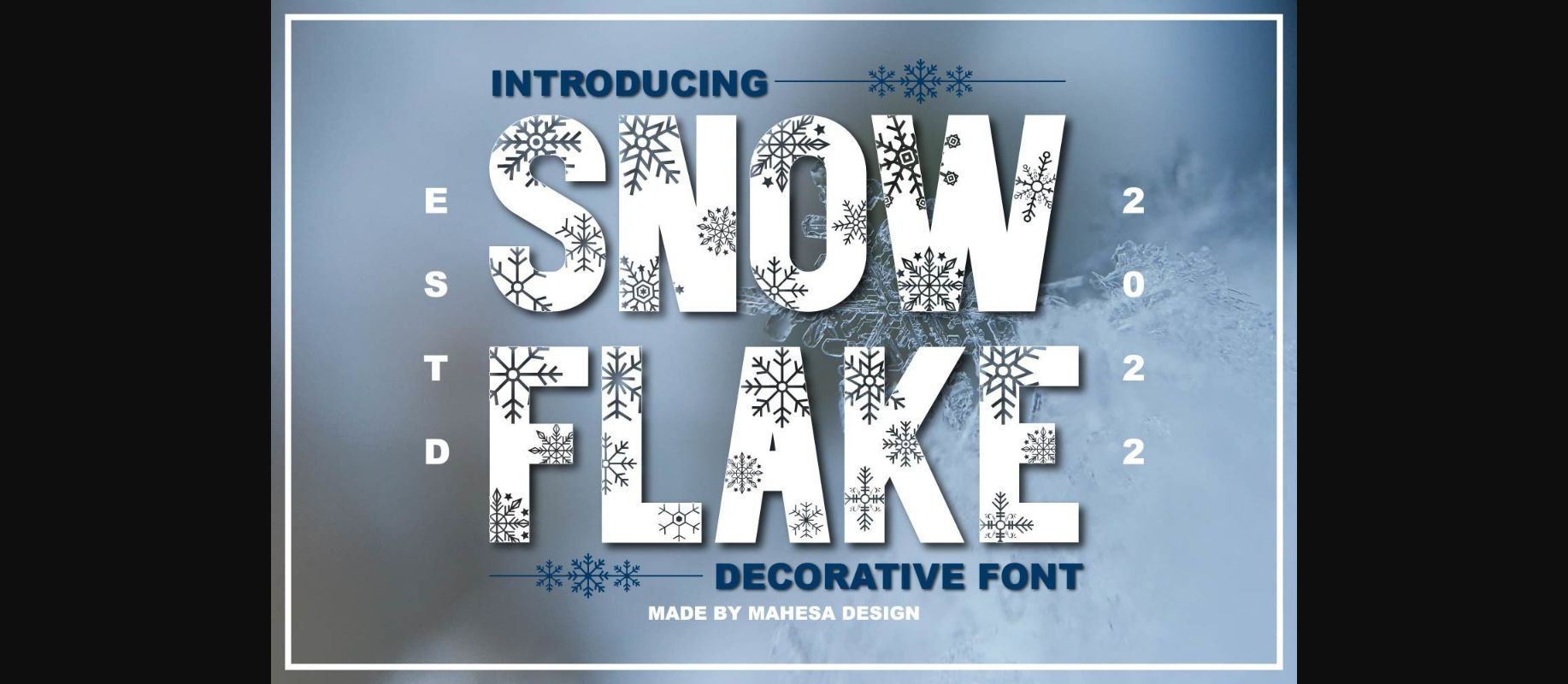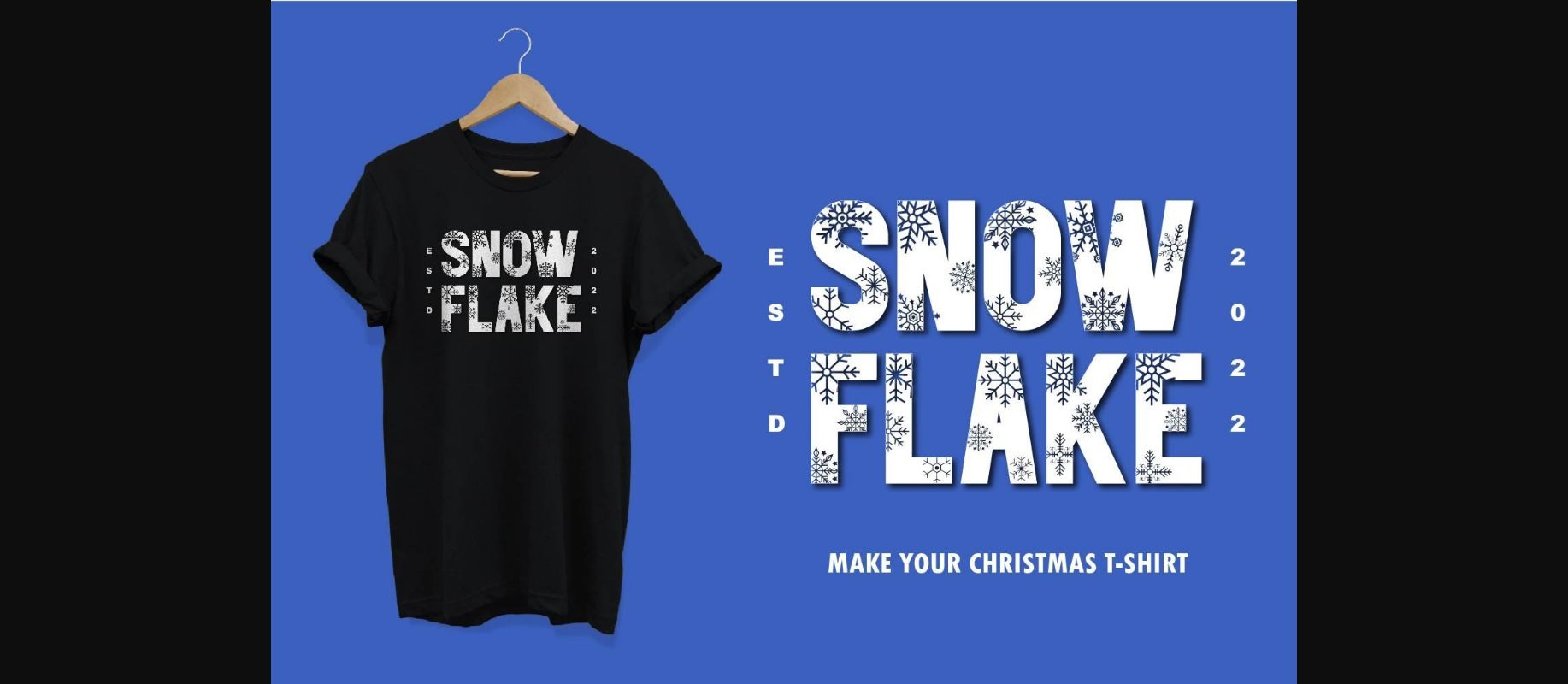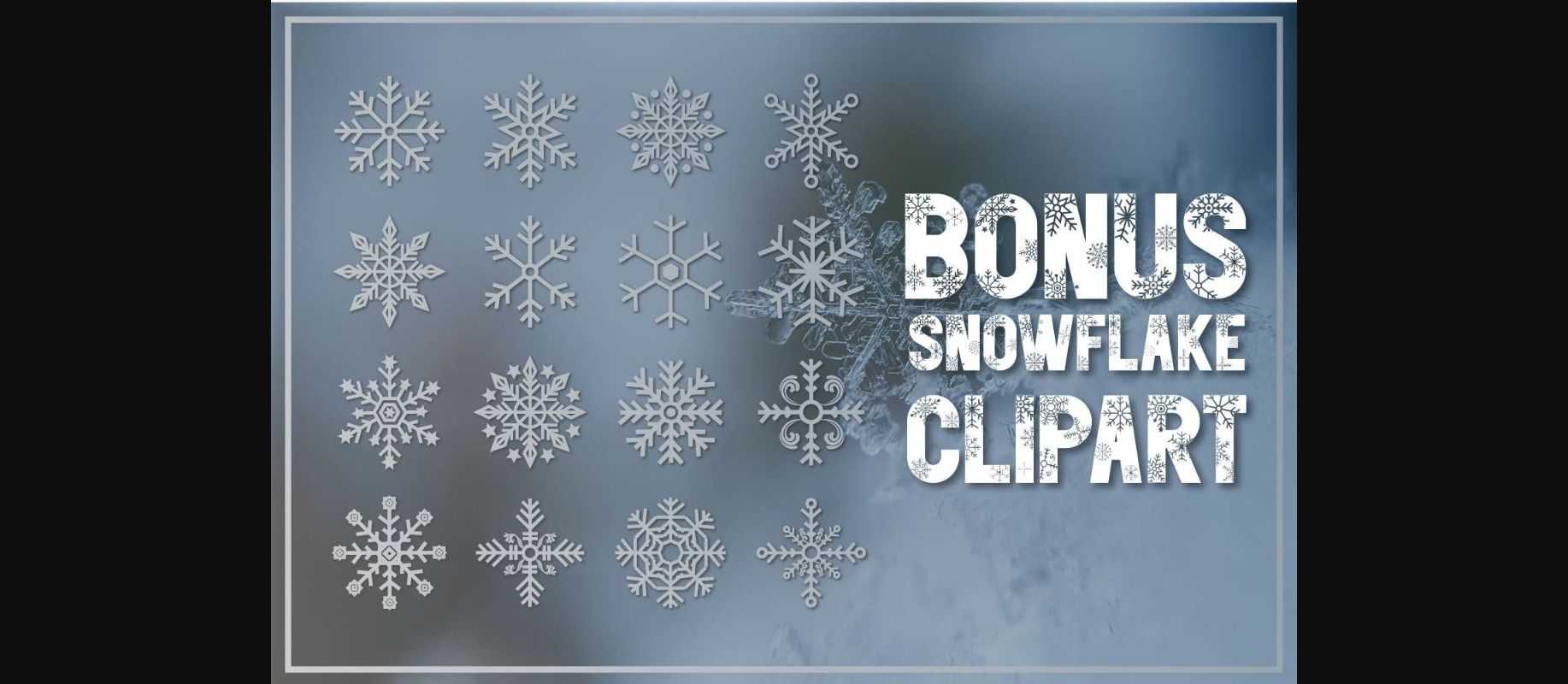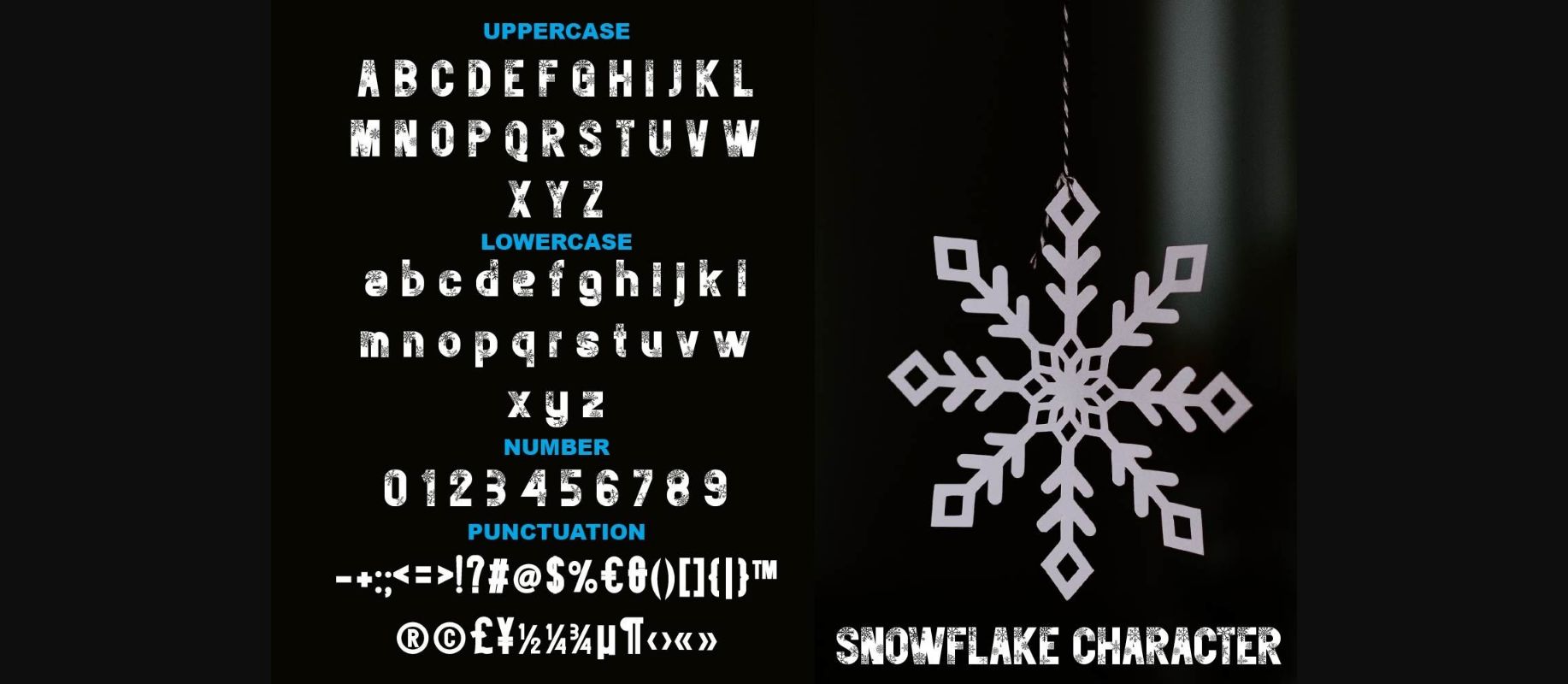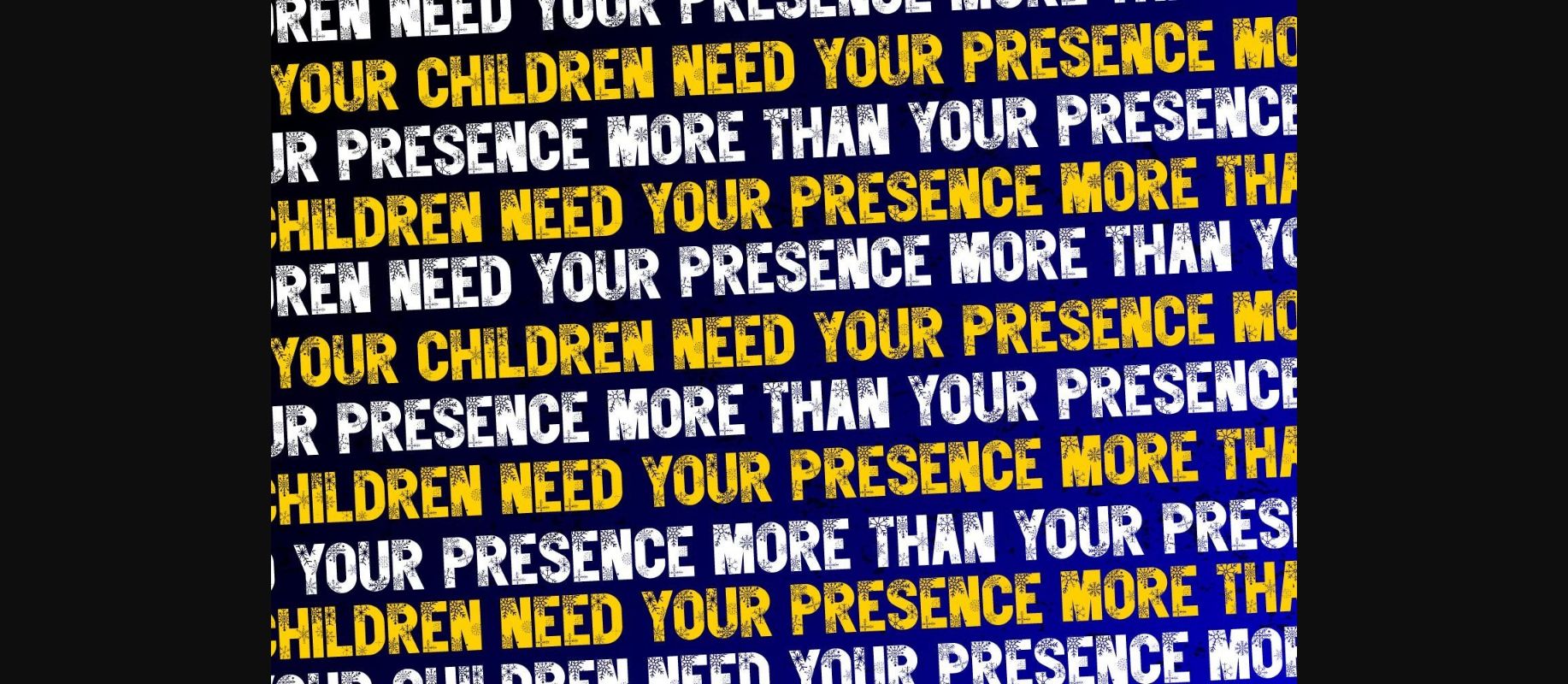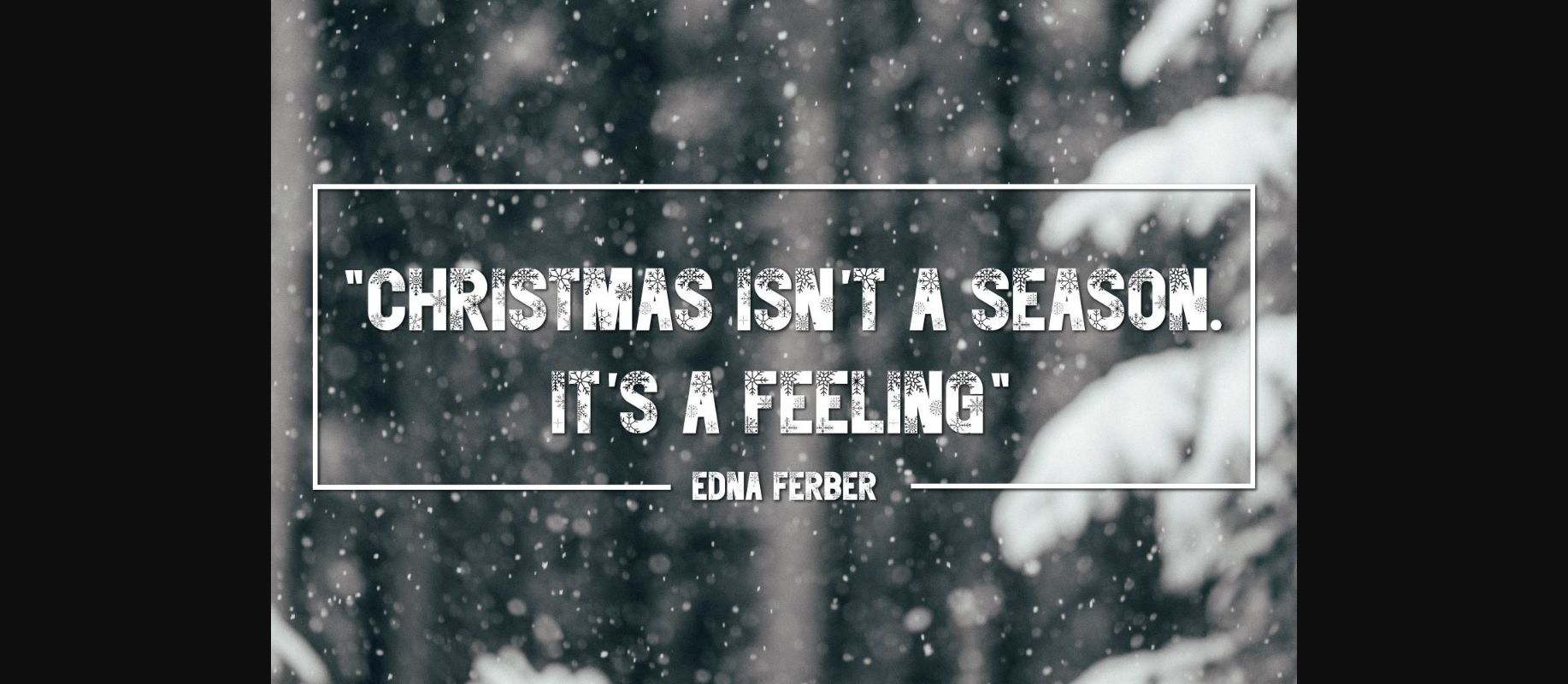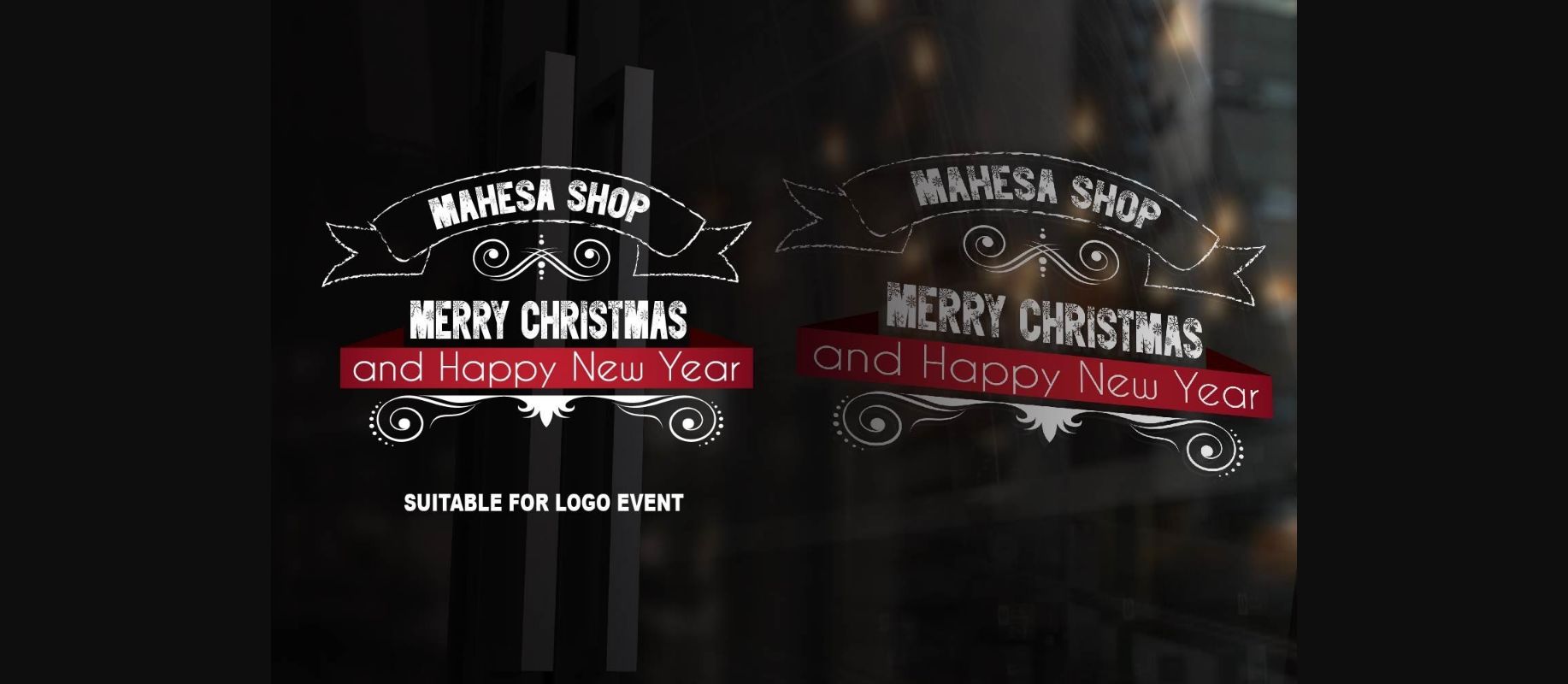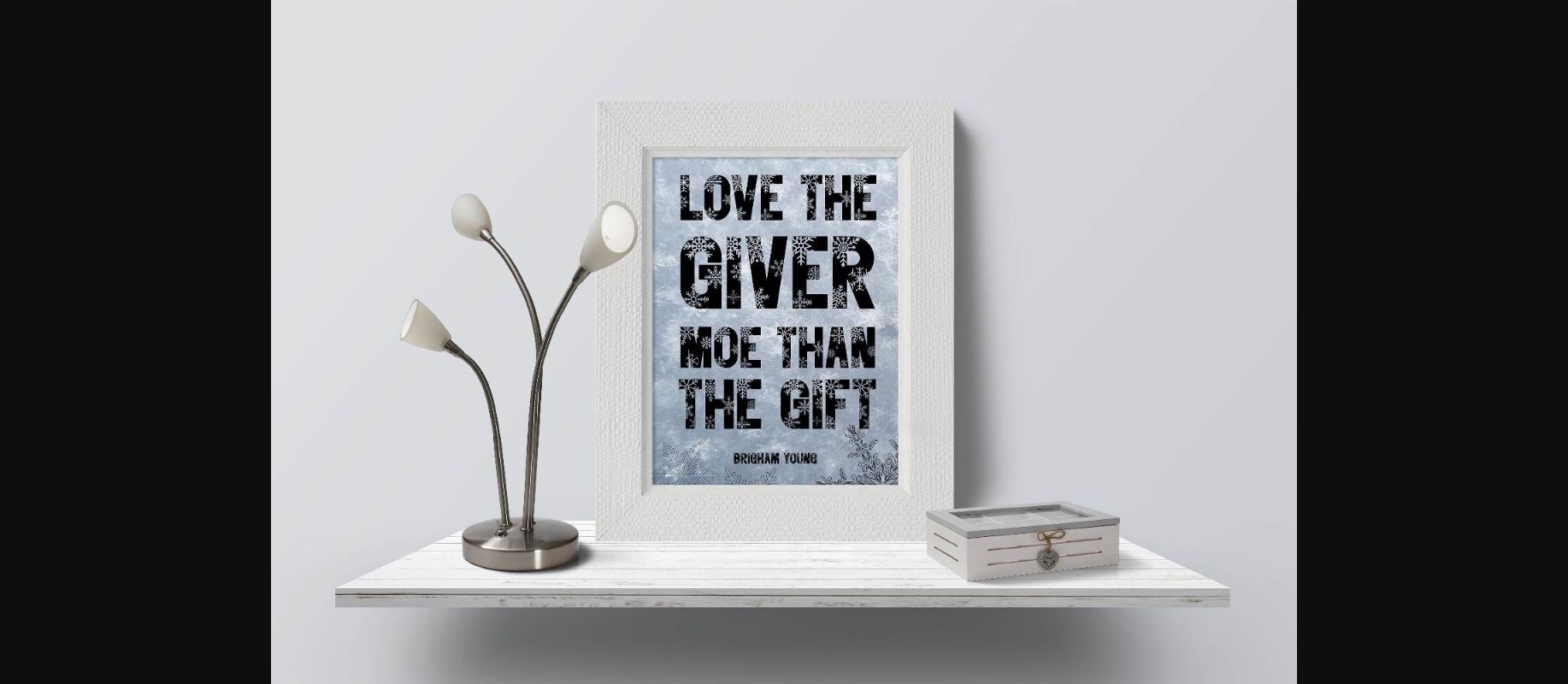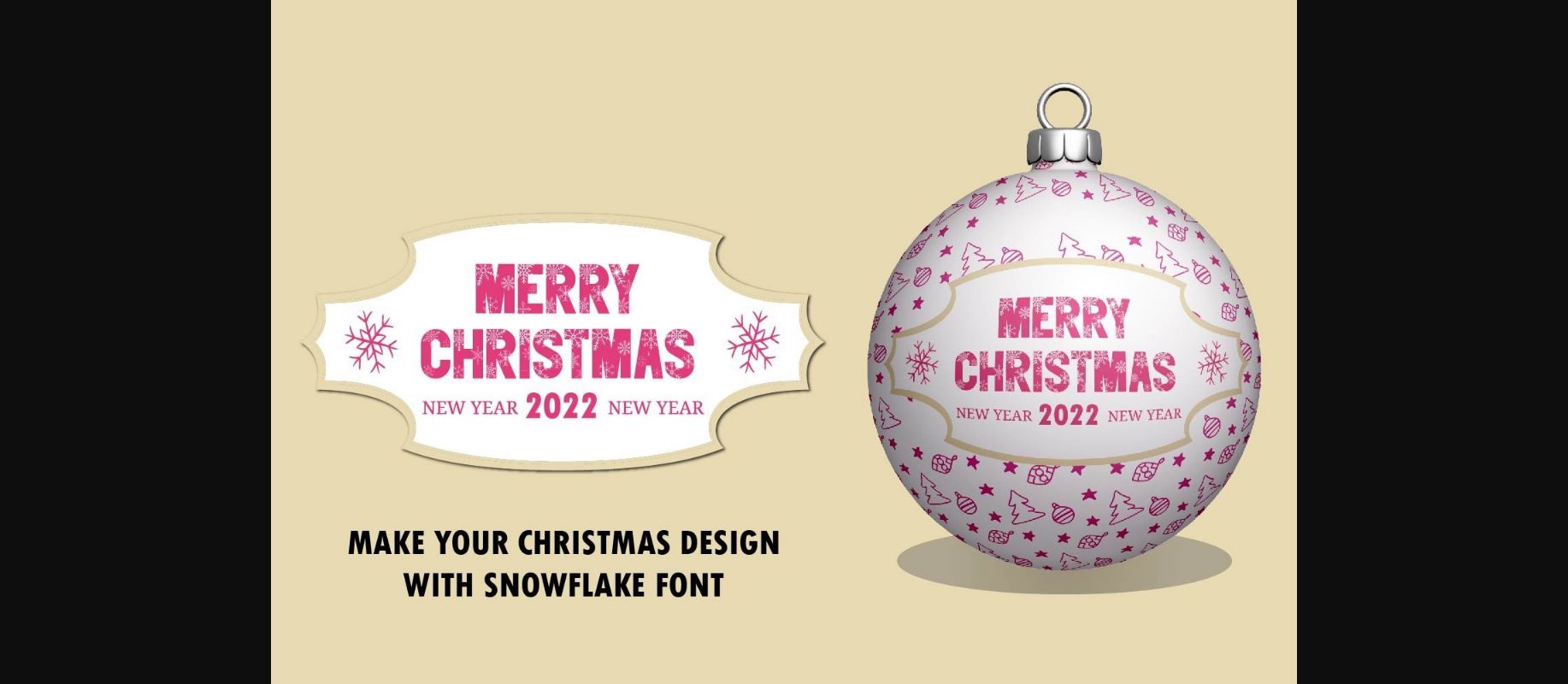
HomeDecorative FontsSnowflake Font Decorative Fonts Snowflake Font FacebookXPinterestWhatsApp 1 of 11 ... Snowflake Font Poster 2... Snowflake Font Poster 3... Snowflake Font Poster 4... Snowflake Font Poster 5... Snowflake Font Poster 6... Snowflake Font Poster 7... Snowflake Font Poster 8... Snowflake Font Poster 9... Snowflake Font Poster 10... Snowflake Font Poster 11... About Snowflake Font Snowflake is a thick lettered and incredibly unique decorative font. It can be used for various design ideas, particularly those related to the Christmas holiday. DOWNLOAD NOW People also explored Amstha Font Gelico Milk Font My Sunny Upside Font Cute Monster Font Brown Carolina Font Mega Jaya Font Rustic Wedding Font Calianda Font Thundra Font 300 0 TagsSnowflake Font Previous articleStarry Night FontNext articleMarine Animal Font LEAVE A REPLY Cancel reply Comment: Please enter your comment! Name:* Please enter your name here Email:* You have entered an incorrect email address! Please enter your email address here Website: Save my name, email, and website in this browser for the next time I comment. Personal Use Free Hillgates Personal Use Free Read more about this font Electroharmonix Personal Use Free Read more about this font Zero Hour Personal Use Free Read more about this font Mustica Personal Use Free Read more about this font BLOG Free Fonts Risk: Why Free Fonts Can Be Dangerous for Designers Free Fonts Risk: Why Free Fonts Can Be Dangerous for Designers Using free fonts is a common practice in web and graphic design. However, the... How to Cut Any Font on Cricut: Convert a Font to SVG (Free) Top 10 Handwritten Fonts That Elevate Your Designs Free vs Paid Fonts: Why Investing in Premium Fonts Is Worth It